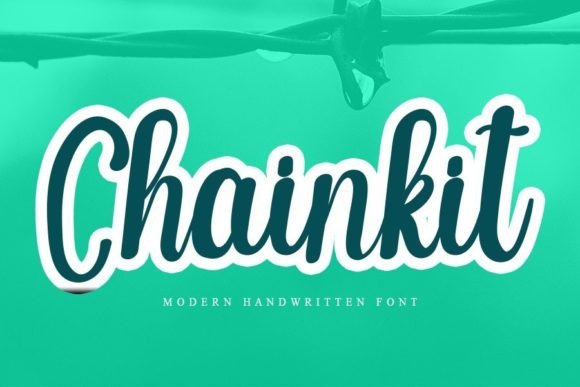
**Chain Links: An Alluring Font for Professionals and Creatives**
Unleash the elegance and power of Chainkit, a stunning handwritten font that captivates with its modern charm and unwavering precision. Inspired by the timeless art of calligraphy, this font dances across the page with impeccable form, striking a balance between delicate strokes and bold accents.
Whether you're crafting business reports, designing captivating logos, or embellishing invitations with a touch of sophistication, Chainkit is your ultimate ally. Its versatile nature effortlessly adapts to any project, infusing it with a sense of professionalism and creativity.
Embrace the allure of Chainkit's harmonious strokes, carefully crafted by artisans at NYA Letter. Each letter flows seamlessly into the next, creating a visual symphony that captures the essence of handwritten elegance.
Beyond its aesthetic appeal, Chainkit is meticulously designed to enhance readability, ensuring that your messages are conveyed with clarity and impact. Each character is carefully spaced and proportioned to provide optimal legibility, even in small sizes.